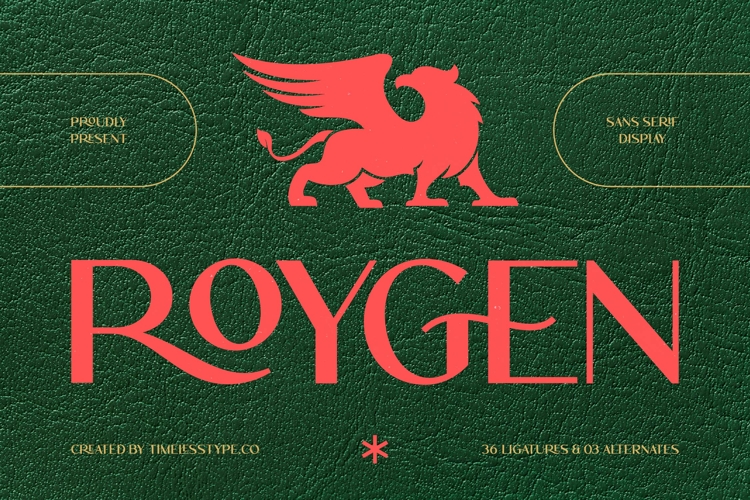
Roygen Elegant Sans Serif Display
Roygen – Elegant Sans Serif Display
Roygen is a sophisticated sans serif display typeface that combines modern minimalism with a touch of classic elegance. Designed to make a strong visual statement, Roygen features clean lines, refined proportions, and distinctive ligatures that add personality and uniqueness to every composition.
Its stylish and versatile design makes Roygen perfect for premium branding and high-impact headlines. The font includes 36 ligatures and 3 stylistic alternates, enabling designers to craft seamless and customized typographic layouts with ease. The subtle decorative details, especially in characters like the “R” and “G,” provide a luxurious and memorable aesthetic.
Roygen is ideal for projects that demand clarity, elegance, and a contemporary feel. Whether used in logos, packaging, editorial layouts, or digital media, this typeface delivers a polished and professional appearance.